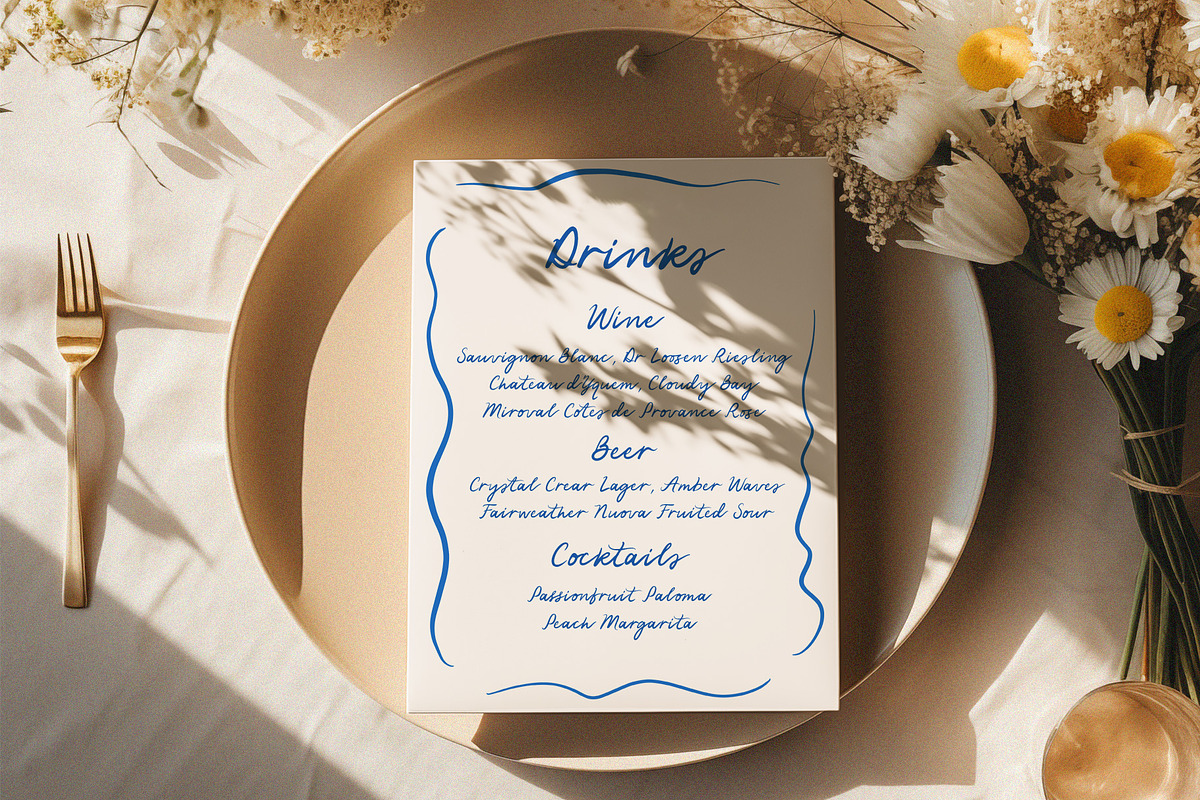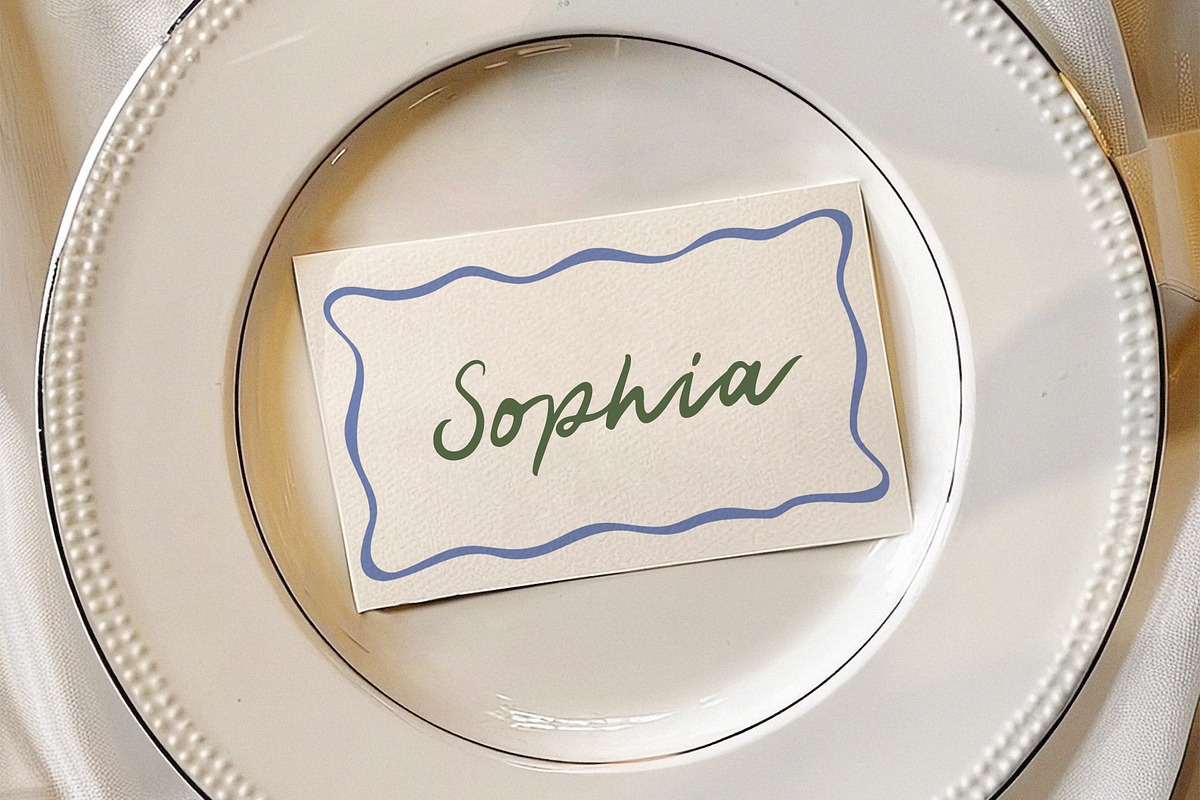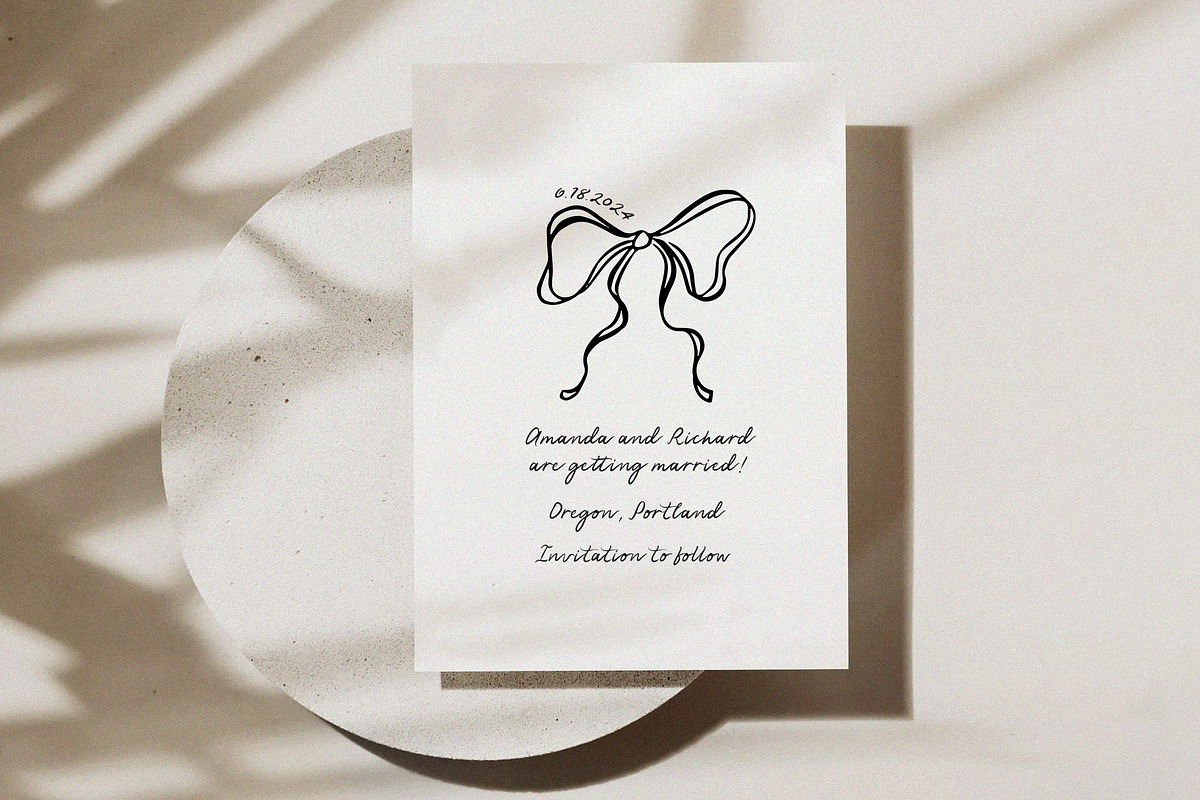
Rose Mary Handwritten Wedding Font
Calamar Studio introducing you the new handwritten font that will be perfect on your wedding invitations in 2024-2025 wedding season. Casual, trendy and absolutely stunning - that's all about Rose Mary font. It perfectly combines with Whimsical Love collection
Rose Mary Handwritten Wedding Font by Calamar Studio fits naturally into Branding, posters, packaging, typography.